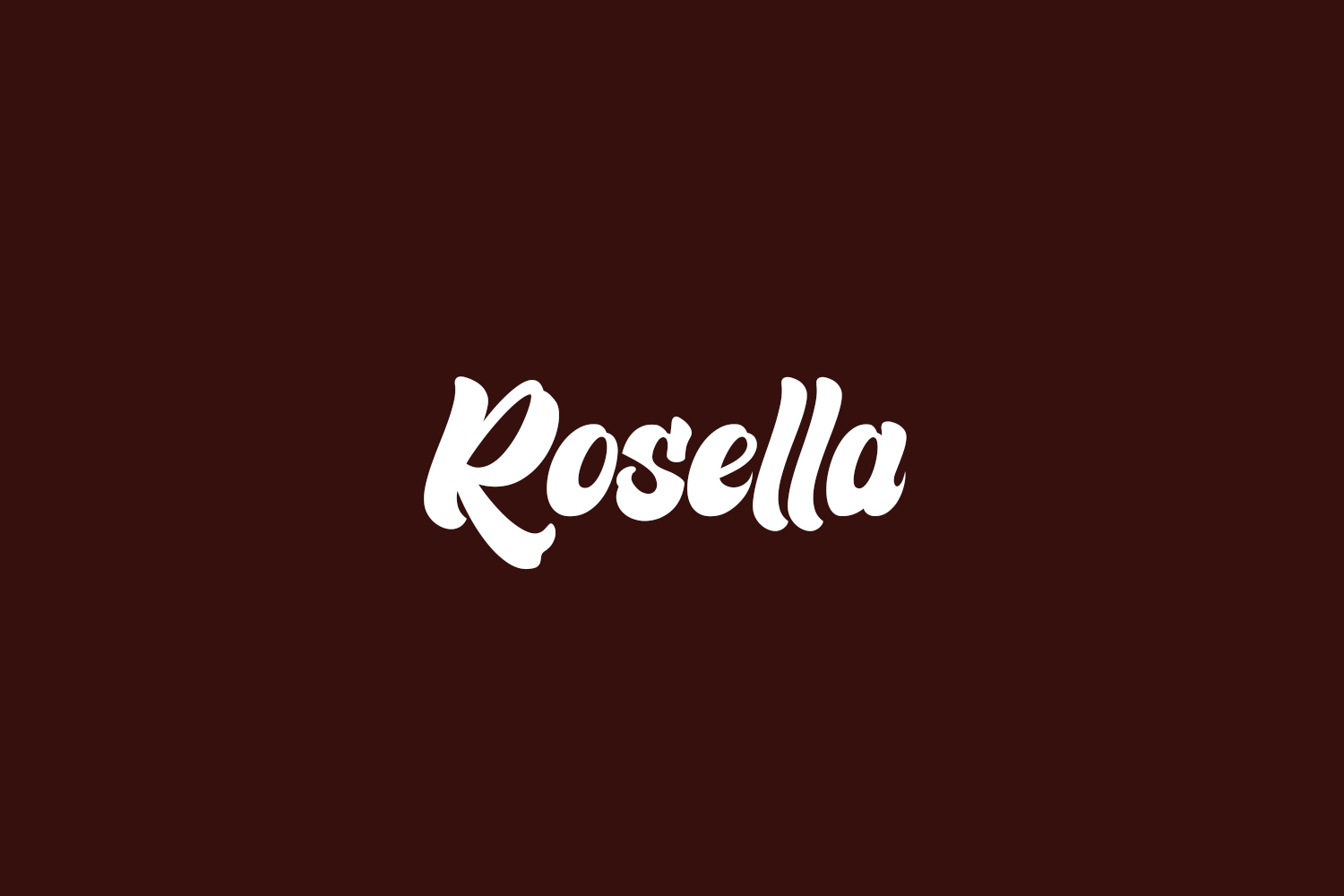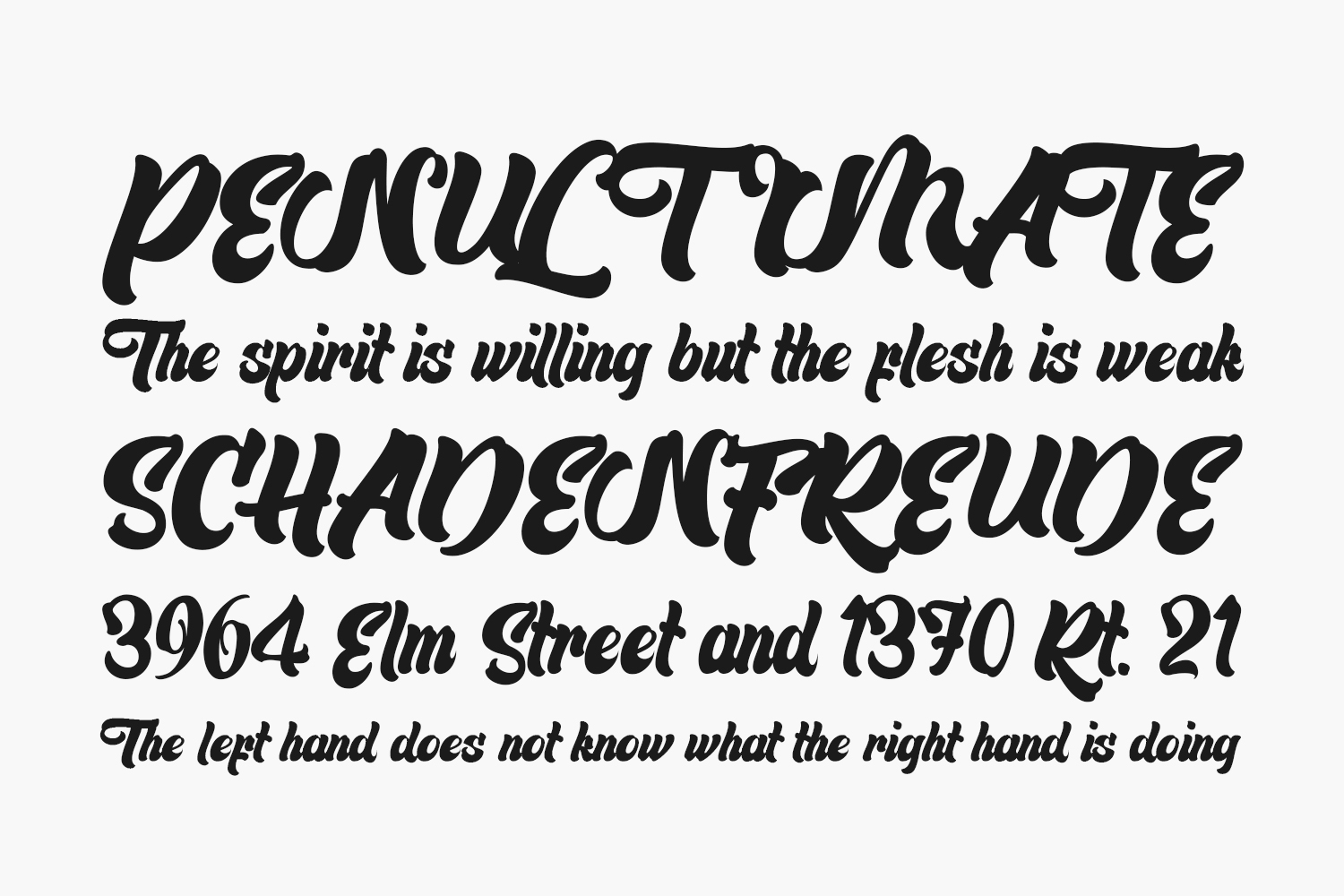
Rosella Free Font is a unique bold lettering typeface with extra swashes. Very suitable to be used for the manufacture, quote text, logotype, header magazine, t-shirt design, and concept handmade designs, etc. It also supports multilingual characters.